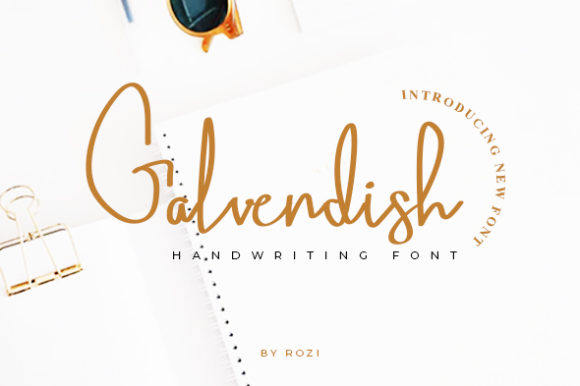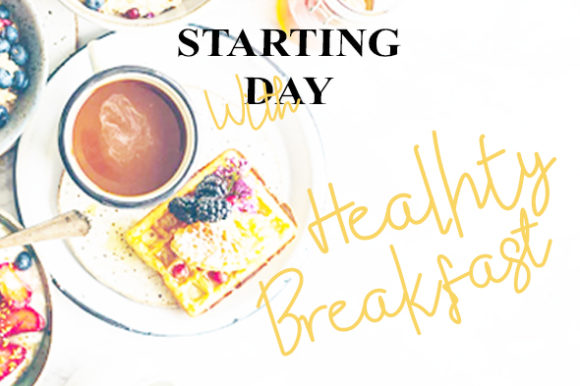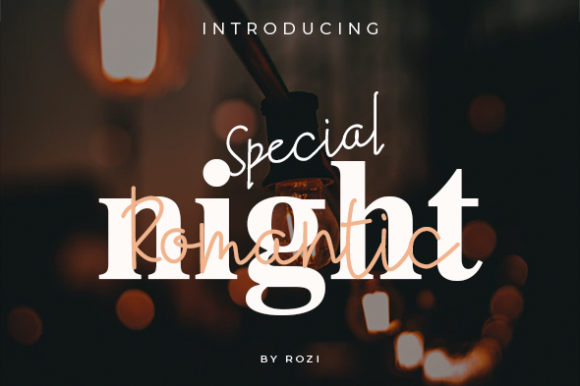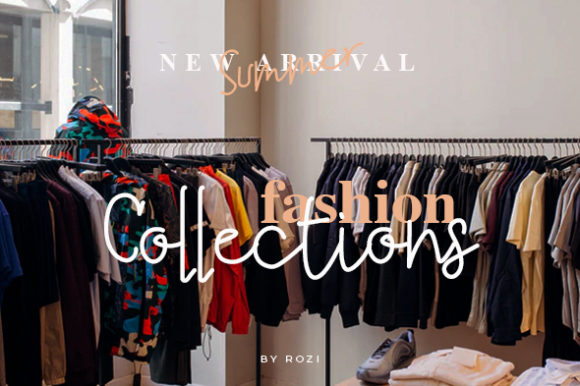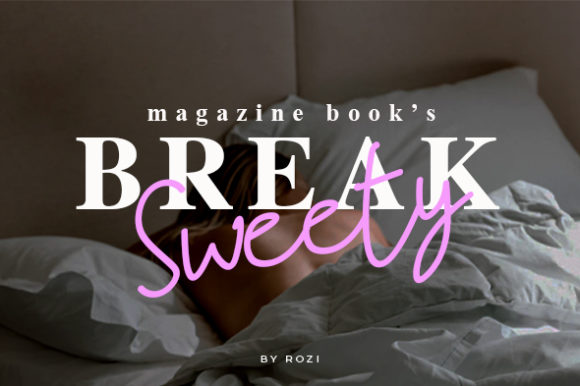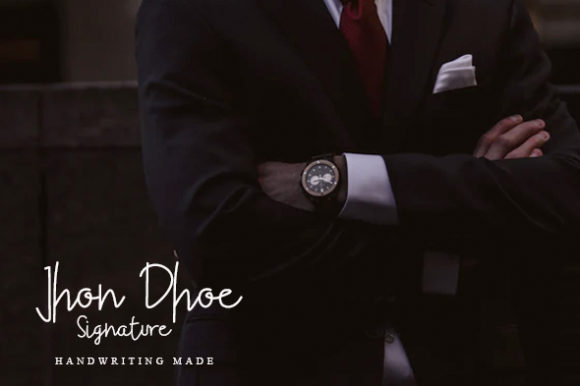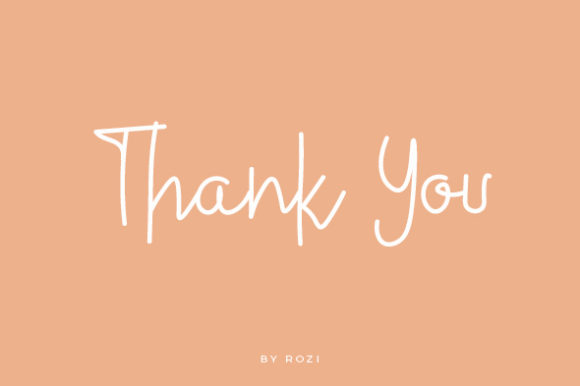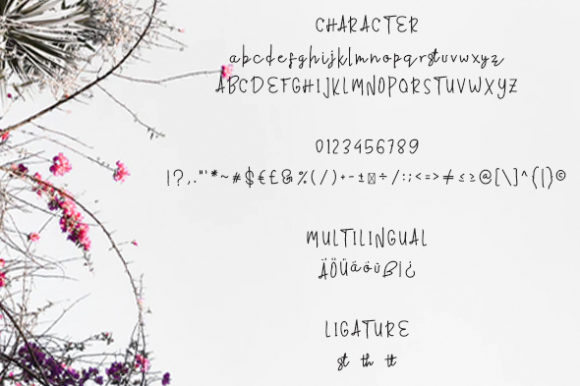
Galvendish Font
About Galvendish Font
Galvendish is a sweet and casual script with an editorial twist. Use it to add an authentic spark to any design project!